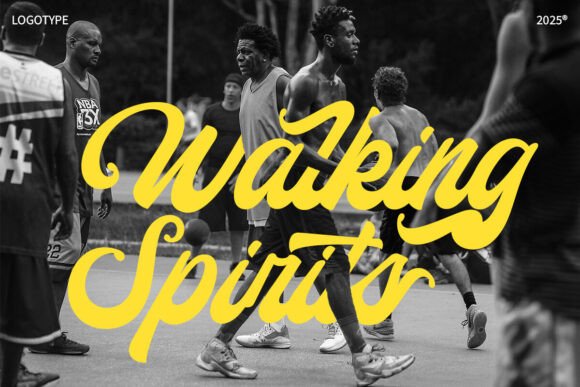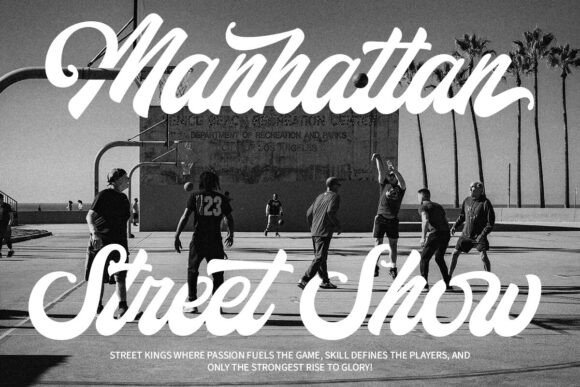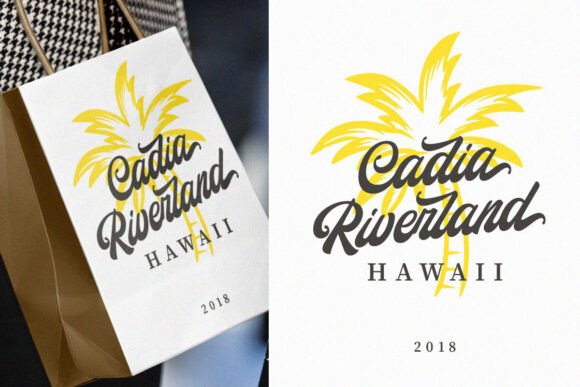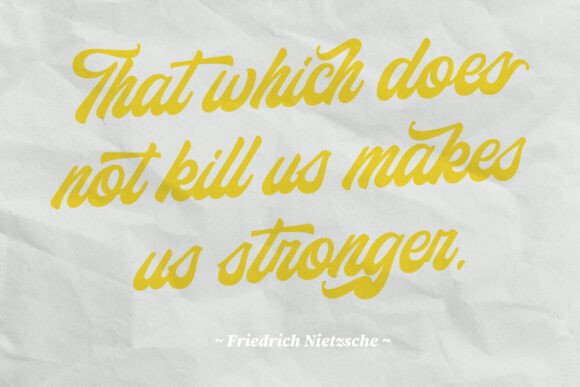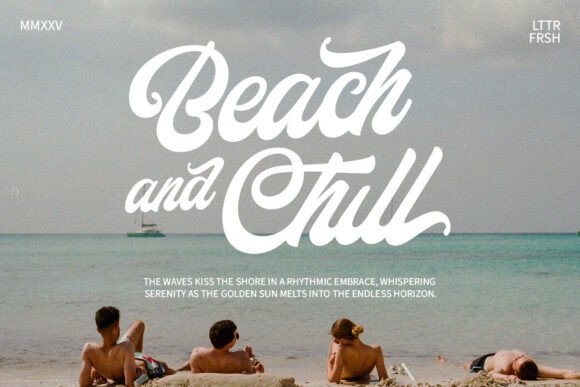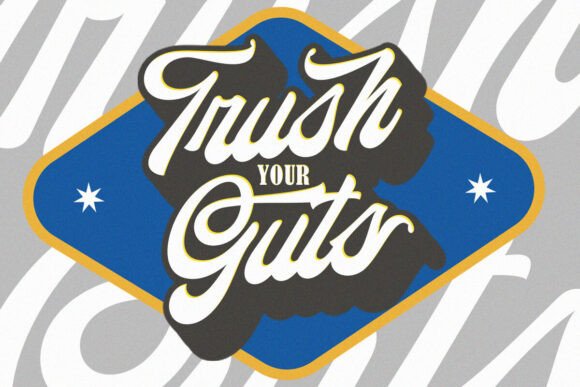
Austria Script Font: A Timeless Blend of Modern Vintage, Retro, and Traditional American Style
In the realm of typography, few fonts manage to capture the essence of multiple eras and styles as effectively as the Austria Script Font. This beautifully crafted font is an amalgamation of modern vintage, retro aesthetics, and old American traditional style, making it a versatile tool for designers and crafters alike. Whether you’re looking to infuse your project with a touch of nostalgia, a dash of modernity, or a pinch of classic American charm, Austria Script is the perfect choice.
The Inspiration Behind Austria Script
Austria Script draws its inspiration from the rich tapestry of vintage and retro design, seamlessly blending these elements with the timeless elegance of traditional American typography. The result is a font that exudes warmth, character, and a sense of history, while still feeling fresh and contemporary. This unique blend allows Austria Script to stand out in any design, making it ideal for projects that require a distinctive touch.
Key Features of Austria Script Font
- Handwritten Style: Austria Script allows you to create handwritten letters instantly, adding a personal and intimate feel to your designs.
- Versatility: Its practicality and flexibility make it suitable for a wide range of applications, from logos and product packaging to social media posts and greeting cards.
- Easy to Read: Despite its script nature, Austria Script maintains a high level of readability, ensuring your message is conveyed clearly and effectively.
- Unique Character: The font’s distinctive blend of vintage, retro, and traditional American styles gives it a unique character that can set your designs apart from the crowd.
Applications of Austria Script Font
The versatility of Austria Script Font makes it an invaluable asset for designers and crafters working on a variety of projects. Here are some of the ideal applications for this remarkable font:
- Logos: Create memorable and impactful logos that convey your brand’s personality and values.
- Handwritten Quotes: Add a personal touch to quotes, making them perfect for sharing on social media or printing on merchandise.
- Product Packaging: Elevate your product packaging with a font that combines modern appeal with vintage charm.
- Headers and Posters: Use Austria Script to create eye-catching headers and posters that demand attention.
- Merchandise: From t-shirts to mugs, Austria Script can help you create unique and engaging merchandise.
- Social Media: Stand out on social media platforms with Austria Script’s distinctive and engaging style.
- Greeting Cards: Add a touch of elegance and personality to your greeting cards, making them truly special.
Why Choose Austria Script Font?
In a world where design trends come and go, Austria Script Font stands out for its timeless appeal and versatility. Here are a few reasons why designers and crafters are choosing Austria Script:
- Timeless Design: Austria Script’s blend of styles ensures it remains relevant across various design trends.
- Emotional Connection: The font’s handwritten nature and vintage inspiration can evoke emotions and create a connection with your audience.
- Efficiency: With Austria Script, you can create professional-looking designs quickly and efficiently, saving you time and effort.
Austria Script Font is more than just a typeface; it’s a tool that allows designers and crafters to bring their creative visions to life. Its unique blend of modern vintage, retro, and traditional American styles, combined with its practicality and versatility, makes it an indispensable asset in any designer’s toolkit. Whether you’re working on a logo, a poster, or a social media post, Austria Script can help you create designs that are not only visually stunning but also deeply engaging. Embrace the timeless charm of Austria Script Font and elevate your designs to new heights.